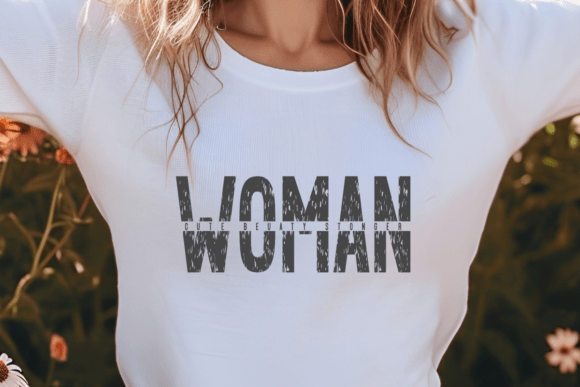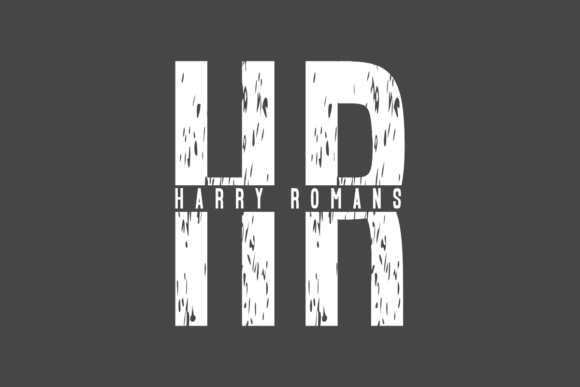
Split is a bold sans serif display font with a rugged, textured twist — perfect for designs that need grit, character, and a little chaos. With its split-style and distressed edges, Split is made to stand out on bold quotes, edgy shirts, rustic signage, and impactful SVGs.
Whether you’re designing for sublimation mugs, farmhouse wall prints, or grunge-style POD apparel, Split delivers a powerful statement. This font brings a handcrafted, slightly rebellious vibe that’s perfect for crafters and designers selling digital products on Etsy, using Cricut, or building eye-catching print-on-demand artwork.
Perfect for: distressed quote SVGs, sublimation designs, bold Cricut crafts, rustic signs, edgy POD t-shirts, farmhouse-style printables, impactful Etsy listings, and textured poster designs.